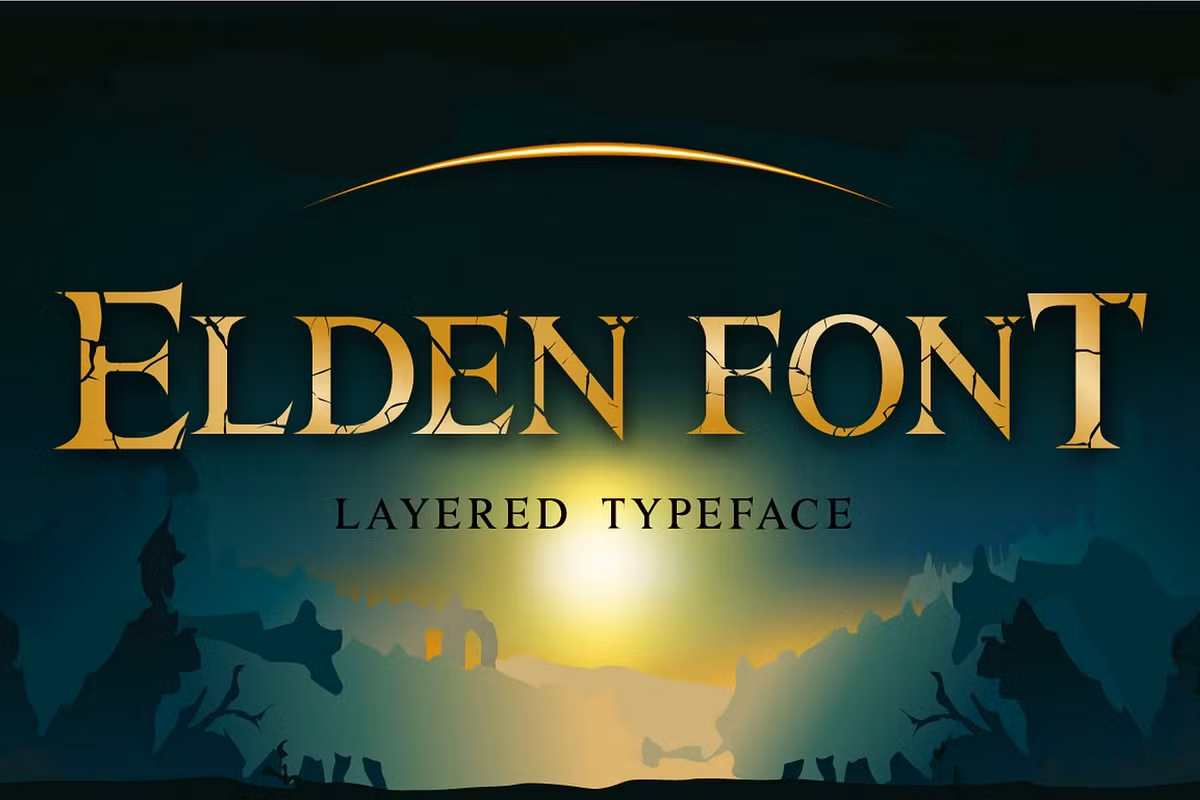
Elden font - layered serif font Free Download
Elden Font - Layered Serif Font Free Download
The Elden Font - Layered Serif Font Free Download is a bold and modern serif typeface with a unique layered design, offering a stylish and sophisticated look. Perfect for creating impactful headlines, logos, posters, and any design project that needs a strong presence, this font brings both elegance and versatility to your work. Please note, for commercial use, a license must be purchased. You can download it for free for testing purposes.
With its clean layers and bold serif design, the Elden Font - Layered Serif Font Free Download is ideal for projects that require a distinctive and contemporary look. Whether you're designing for branding, advertising, or editorial content, this font offers a unique layered effect that adds depth and interest to your designs.
Get the Elden Font - Layered Serif Font Free Download today and elevate your designs with this bold, modern layered serif typeface.